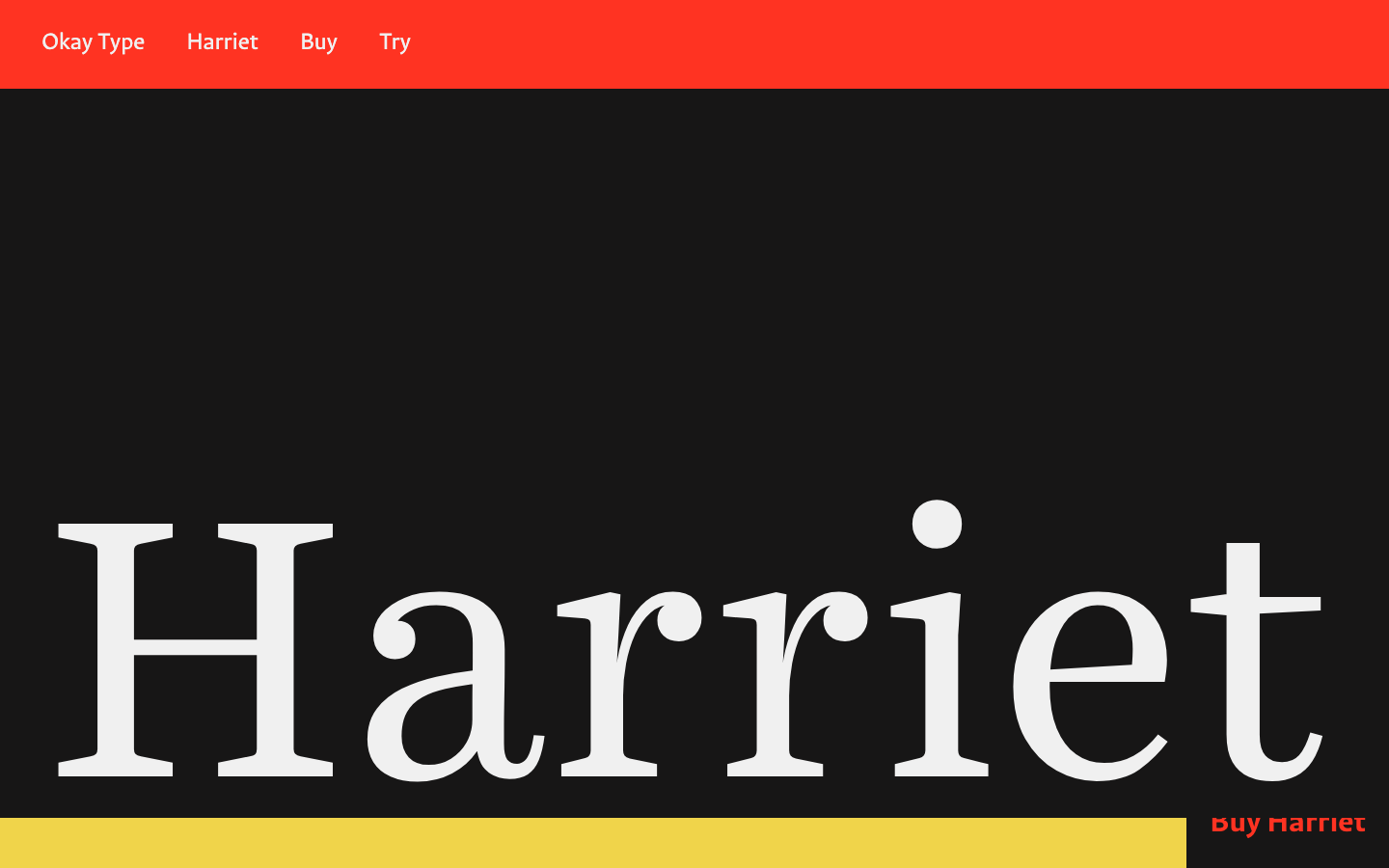
Blanco vs Harriet
Blanco and Harriet are both serif typefaces sharing a editorial foundation. Where Blanco leans elegant, Harriet brings warm. Compare which suits your Editorial project.
Blanco
ModernReadableElegant
Harriet
ModernReadableWarm
Blanco
Harriet
| Source | Milieu Grotesque | Okay Type |
Recommended: Blanco
- elegant design character